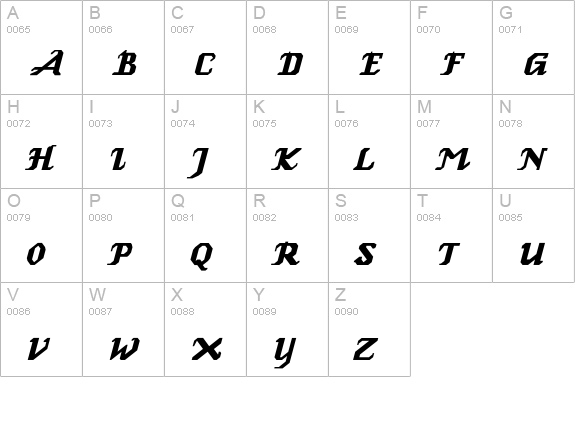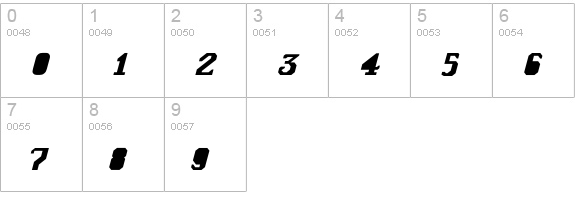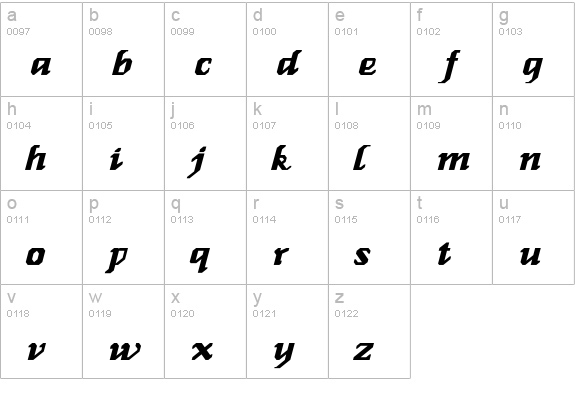
GenoaItalic Font Details
GenoaItalic font exudes elegance and sophistication, making it the perfect choice for projects that require a touch of refinement. Its graceful, slanted design adds a unique flair to any text, enhancing the overall visual appeal. Whether used in headings, invitations, or logo designs, GenoaItalic effortlessly conveys a sense of style and class. What's even better is that GenoaItalic is available for free download at FontsMarket.com. This means you can easily access this stunning font and incorporate it into your creative endeavors without any cost. Don't miss out on the opportunity to elevate your designs with the exquisite beauty of GenoaItalic. Download it today and let your creativity shine!